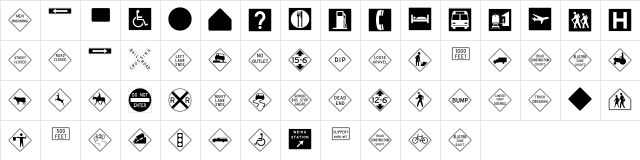
Interstate Pi Three Regular Free Font
Interstate Pi Three Regular
Design Context for Interstate Pi Three
Interstate Pi Three is a composed and adaptable typeface that performs quietly and consistently across a wide range of design contexts.